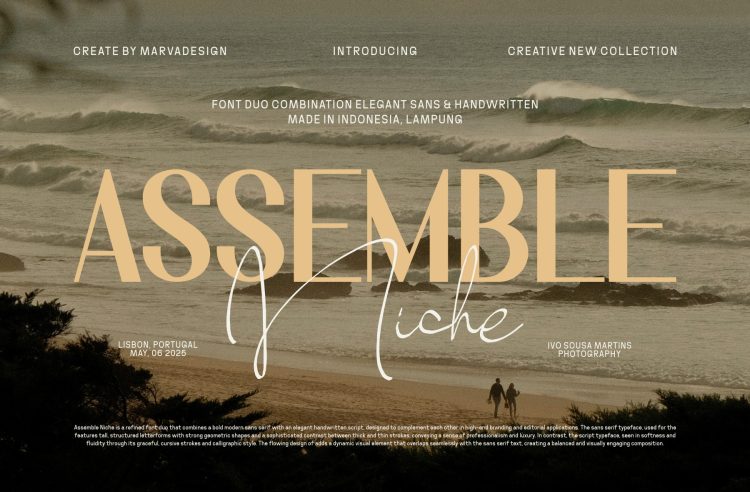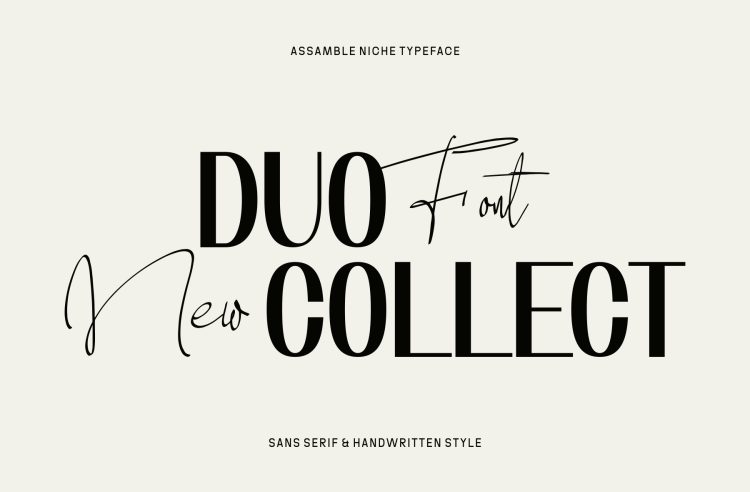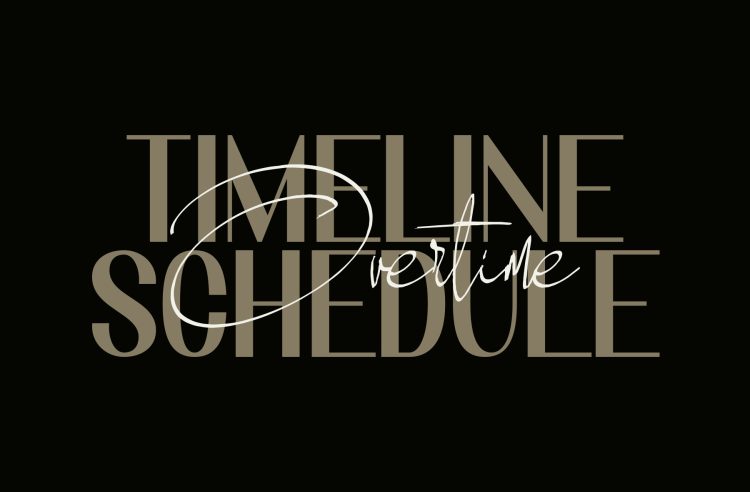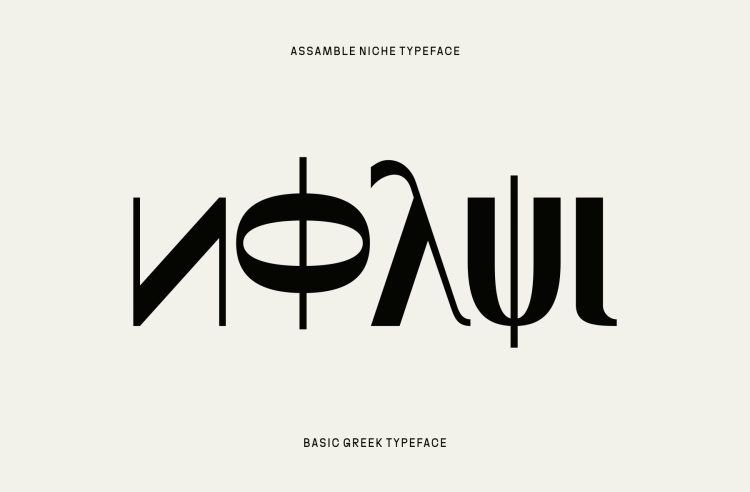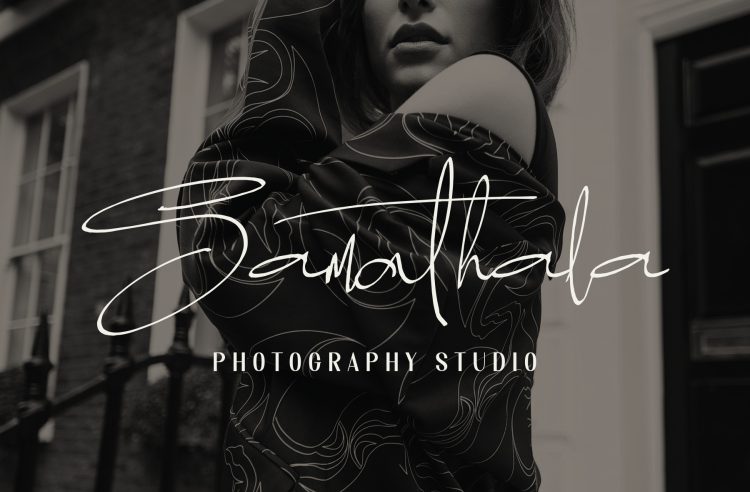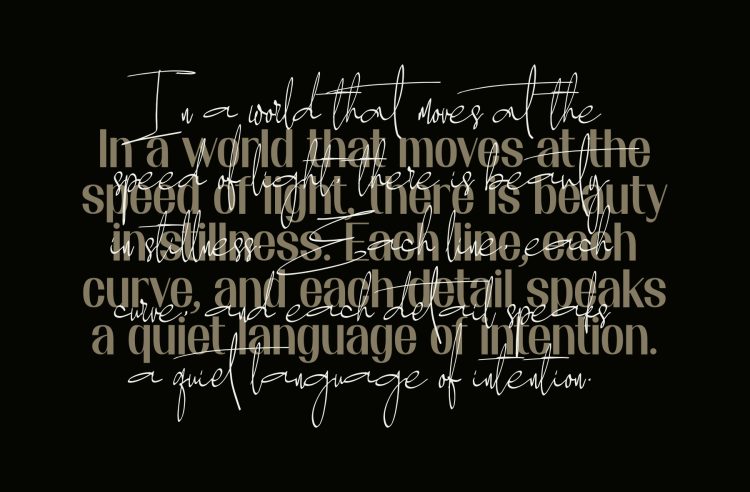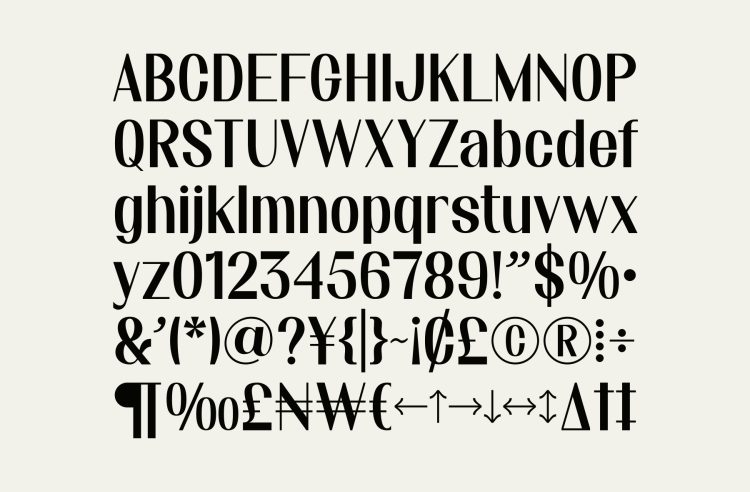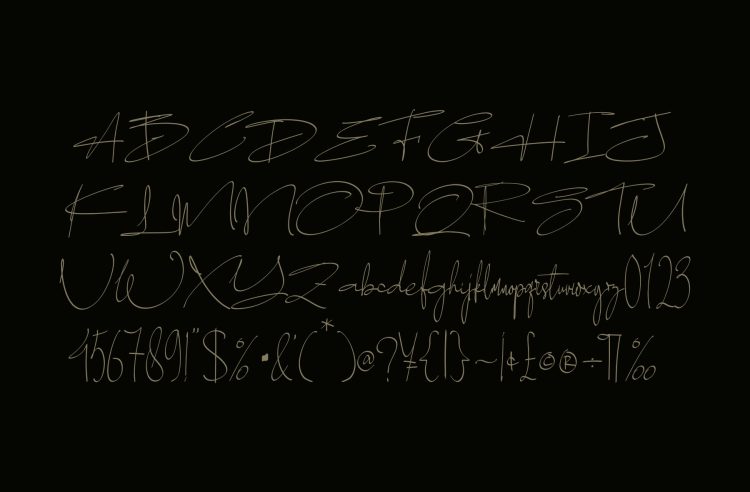
Introducing Duo Font Elegant
Assemble Niche is a refined font duo that combines a bold modern sans serif with an elegant handwritten script, designed to complement each other in high-end branding and editorial applications. The sans serif typeface, used for the features tall, structured letterforms with strong geometric shapes and a sophisticated contrast between thick and thin strokes, conveying a sense of professionalism and luxury. In contrast, the script typeface, seen in softness and fluidity through its graceful, cursive strokes and calligraphic style. The flowing design of adds a dynamic visual element that overlaps seamlessly with the sans serif text, creating a balanced and visually engaging composition. Together, this font duo evokes elegance, creativity, and modern sophistication, making it particularly suitable for fashion brands, upscale packaging, lifestyle publications, and boutique visual identities.